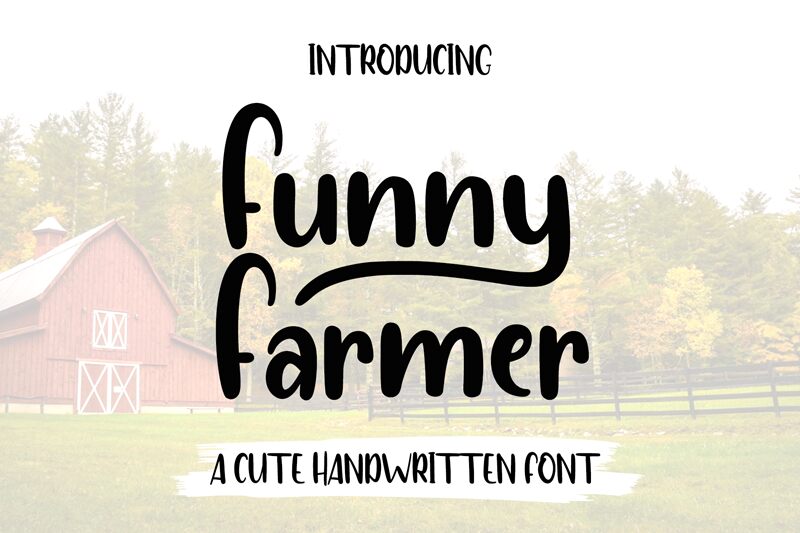
Looking for a fun and playful font to add character to your project? Look no further than Funny Farmer, the whimsical creation of Bearytype. With its cute handwritten style, this font is perfect for infusing your designs with a sense of childlike wonder and whimsy. Whether you're working on a children's book, party invitations, or even branding for a farm-to-table restaurant, Funny Farmer's semi-bold typeface and varying widths make it a versatile choice. So why settle for boring fonts when you can add some personality with Funny Farmer?
Funny Farmer